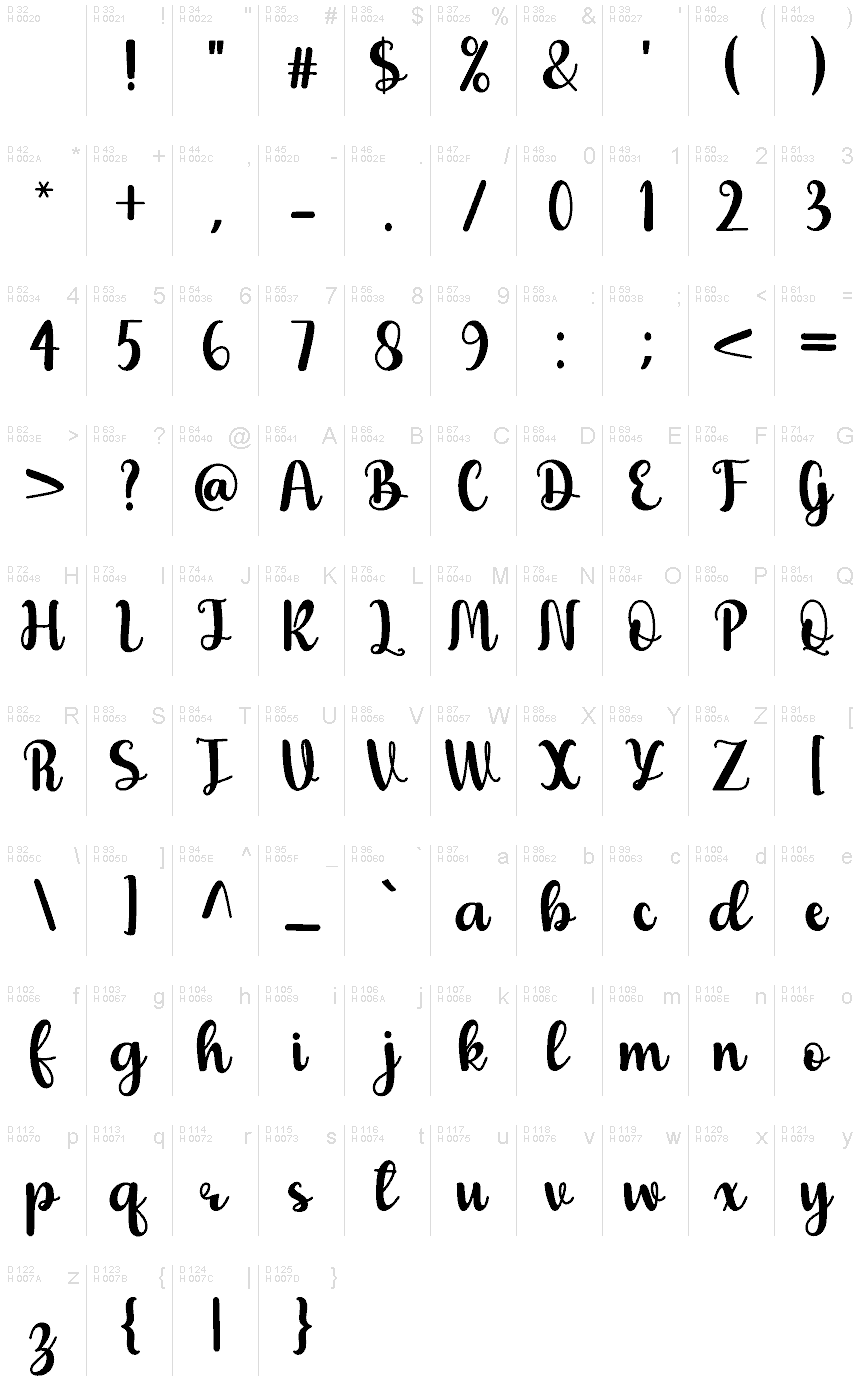
Zodiac
Zodiac font is a brush typeface designed by Lontong Lodeh. It features a smooth flow and signature-like quality with an expressive rhythm that exudes rhythmic elegance and vintage appeal. It references mid-20th century advertising scripts, making it perfect for capturing attention in today's competitive design market.
This free brush font is ideal for branding boutique shops or creative enterprises, packaging design, posters, labels, business cards, invitations, magazines subtitles, apparel designs like t-shirts and caps among others.